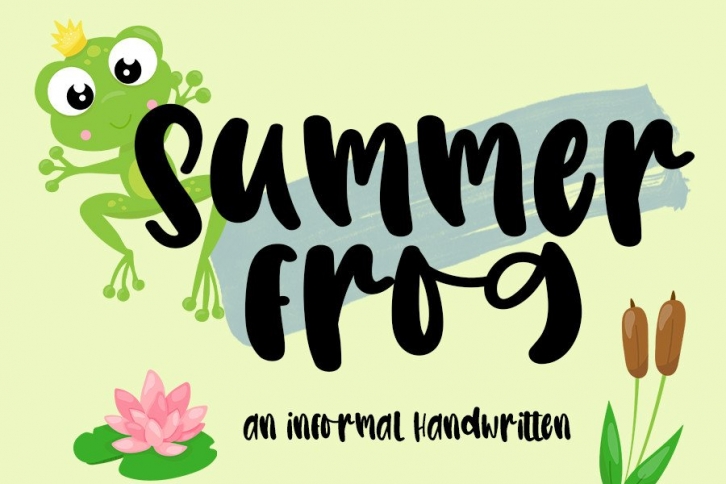
Summer Frog is a relaxed, quirky and whimsical handwritten font. Its informal style and casual vibe will make this font a go-to choice for each of the creations that require a casual touch.